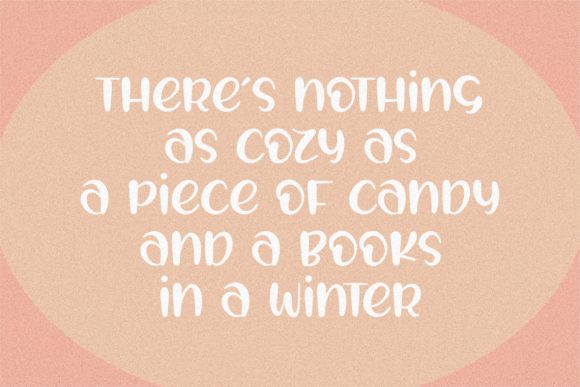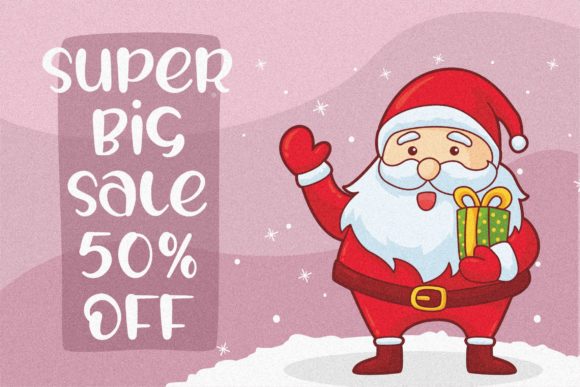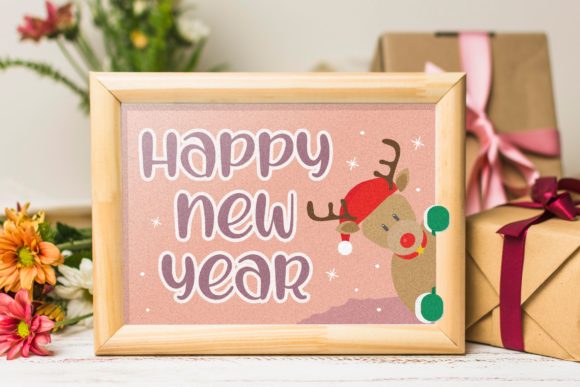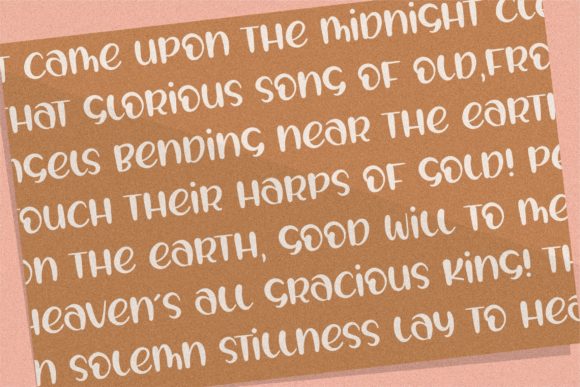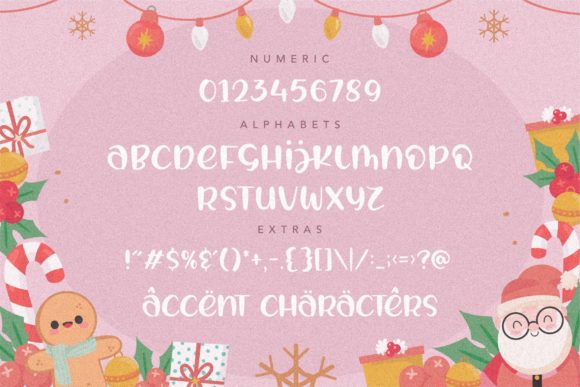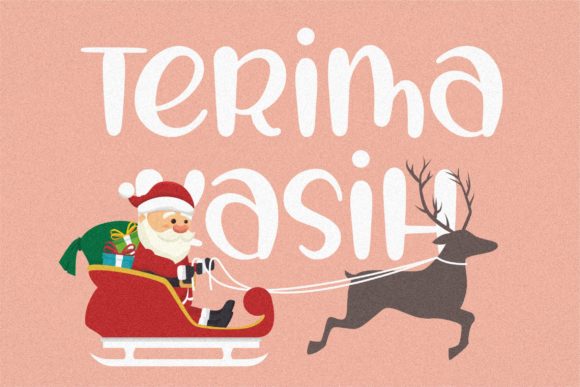
The Sweet Delight of Forsty Candy Font
I’ll never forget the design project that led me to discover Forsty Candy Font. I was working on a festive holiday card for a client, and I was struggling to find the perfect font to match the playful, whimsical vibe of the design. That’s when I stumbled upon Forsty Candy, and it was love at first sight! ✨ The sweet, rounded letters and fun, handwritten style instantly captured the essence of the project, and I knew I had found the perfect fit.
An Honest Review of Forsty Candy Font
- ✅ The incredibly versatile style that works well for a wide range of design projects, from festive holiday cards to sweet treats branding
- ✨ The unique, handwritten feel that adds a personal touch to any design
- 💕 The well-rounded letters that are easy on the eyes and create a sense of warmth and approachability
- 🎉 The extensive character set that includes OpenType features, glyphs, and stylistic alternates for added creativity
While Forsty Candy Font is an amazing addition to any design project, there are a few things to keep in mind: 🤔
- ⚠️ Some users may find the font a bit too playful or childish for certain projects, so use with caution!
- ⚠️ The font may not be the best choice for body text or long blocks of text, as it’s better suited for headings and titles.
The Backstory of Forsty Candy Font
Forsty Candy Font was designed with love and care by a talented type designer who’s passionate about creating fun, unique fonts. The story goes that the designer was inspired by childhood memories of trick-or-treating and the sweet treats that came with it. The result is a font that’s equal parts playful, whimsical, and delightful. 🎃
| Font Name | Forsty Candy Font |
| Author | Balpirick |
Q: Is Forsty Candy Font suitable for body text?
A: While Forsty Candy Font is beautiful, it’s better suited for headings and titles. For body text, you may want to choose a clearer, more legible font.